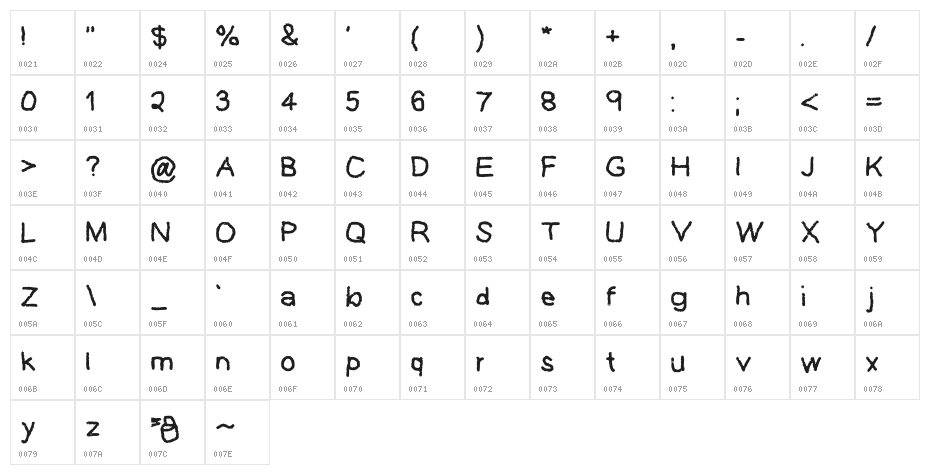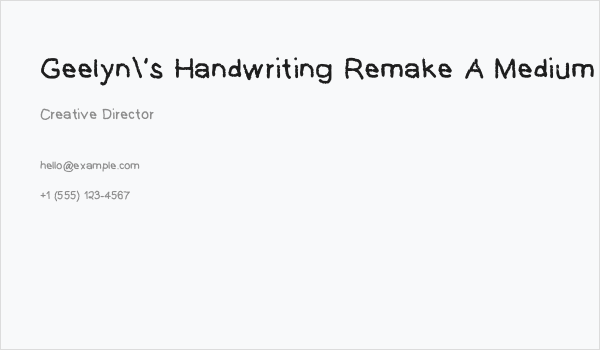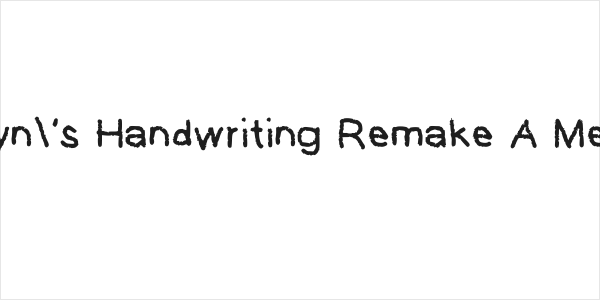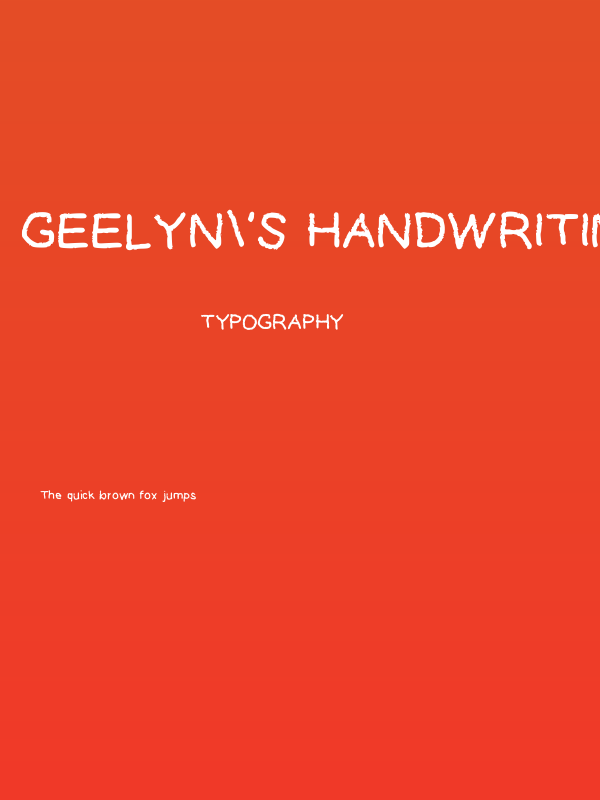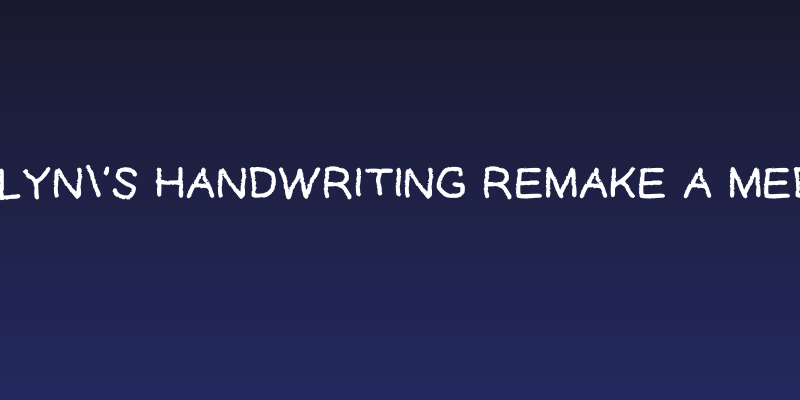
Geelyn's Handwriting Remake A Medium Font
Geelyn's Handwriting Remake A Medium Description
This font exudes a casual, handwritten style with a playful and organic feel. The characters are slightly irregular, mimicking the natural flow of handwriting. Each letter has a textured appearance, adding a sense of authenticity and warmth. The strokes are uneven, giving the font a dynamic and lively character. It maintains good readability while offering a unique, personal touch that stands out in informal settings.
| Overall Style | Casual, Organic |
| Proposed Projects | Ideal for personal notes, greeting cards, casual invitations, and creative projects that require a personal touch. |